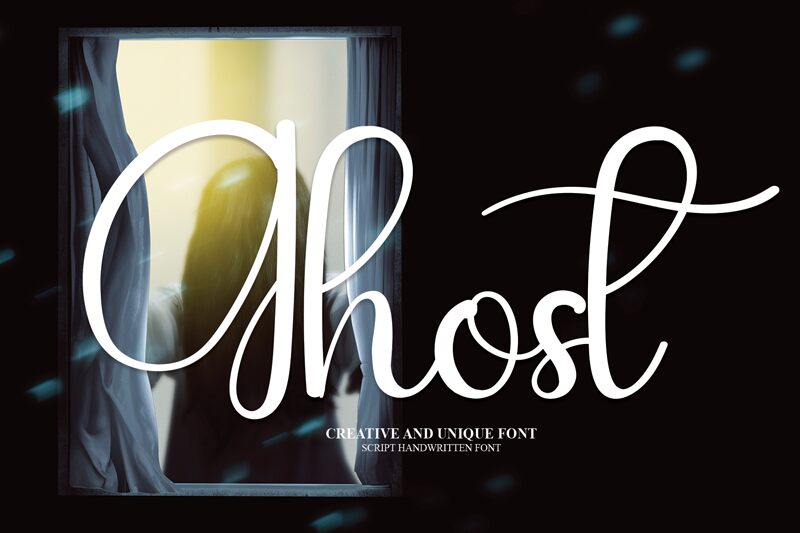
Ghost
Ghost is a captivating handwritten font crafted by designer Andi Moz. Its flowing, organic lines and expressive strokes immediately captivate the eye, evoking a sense of effortless elegance and artistry. The font's unique personality lends itself beautifully to a wide range of design applications, from elegant wedding invitations to visually striking branding and packaging.
The Ghost font's versatility stems from its harmonious blend of classic cursive influences and modern, textured flair. Its calligraphic flourishes and naturalistic imperfections create a sense of handcrafted authenticity, while the overall structure and balance maintain a cohesive, professional aesthetic. This font's versatility makes it an invaluable asset for designers seeking to infuse their work with a touch of refined, yet approachable style.